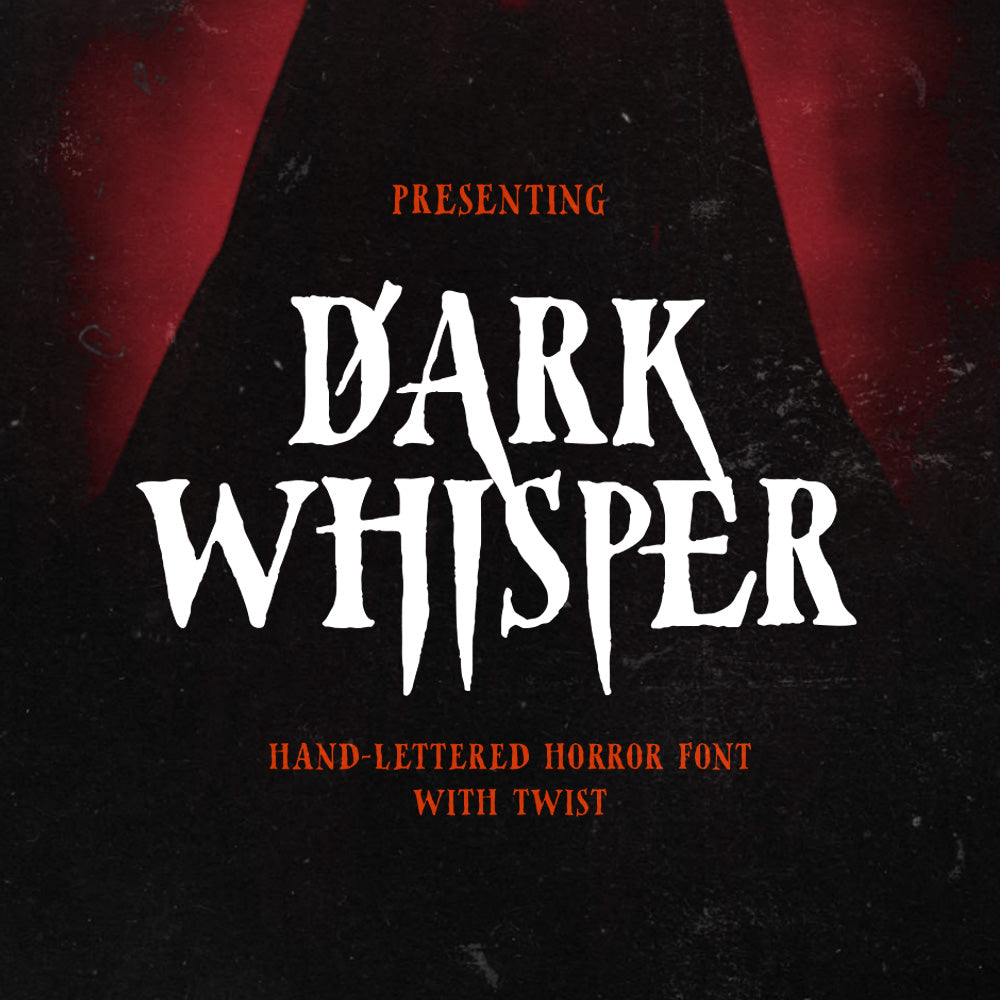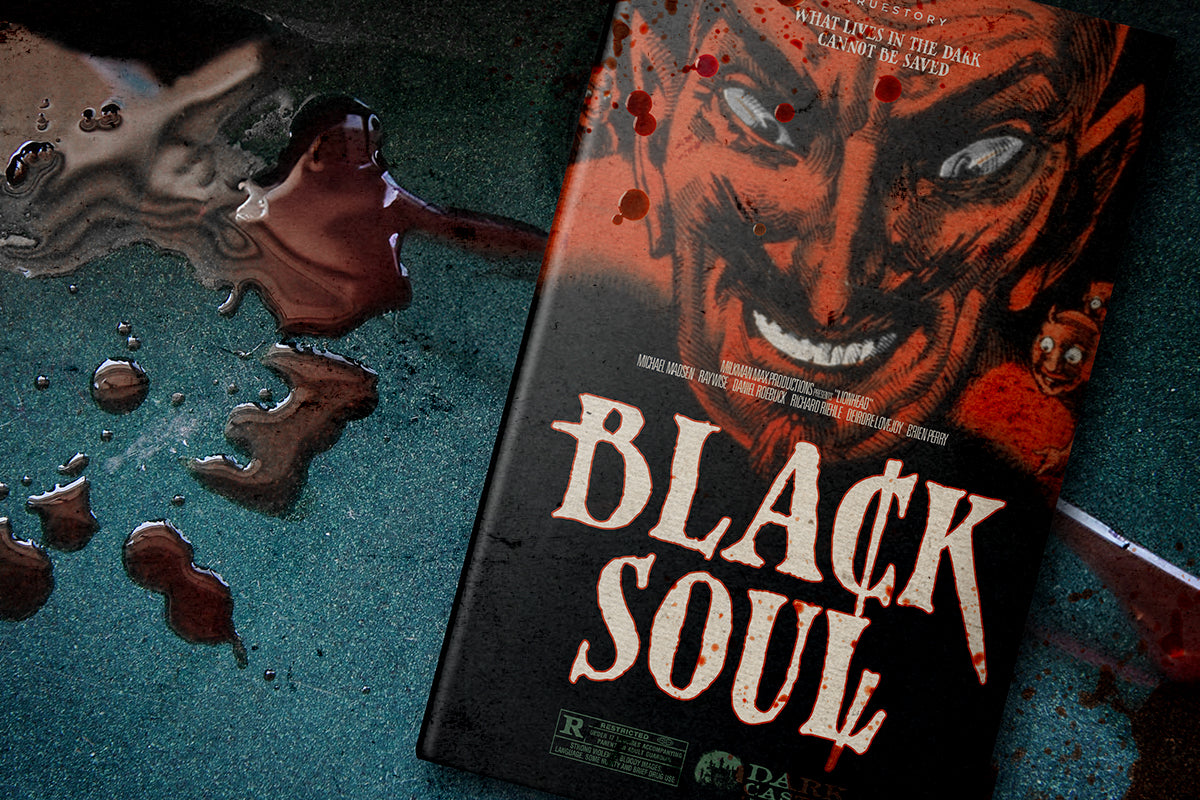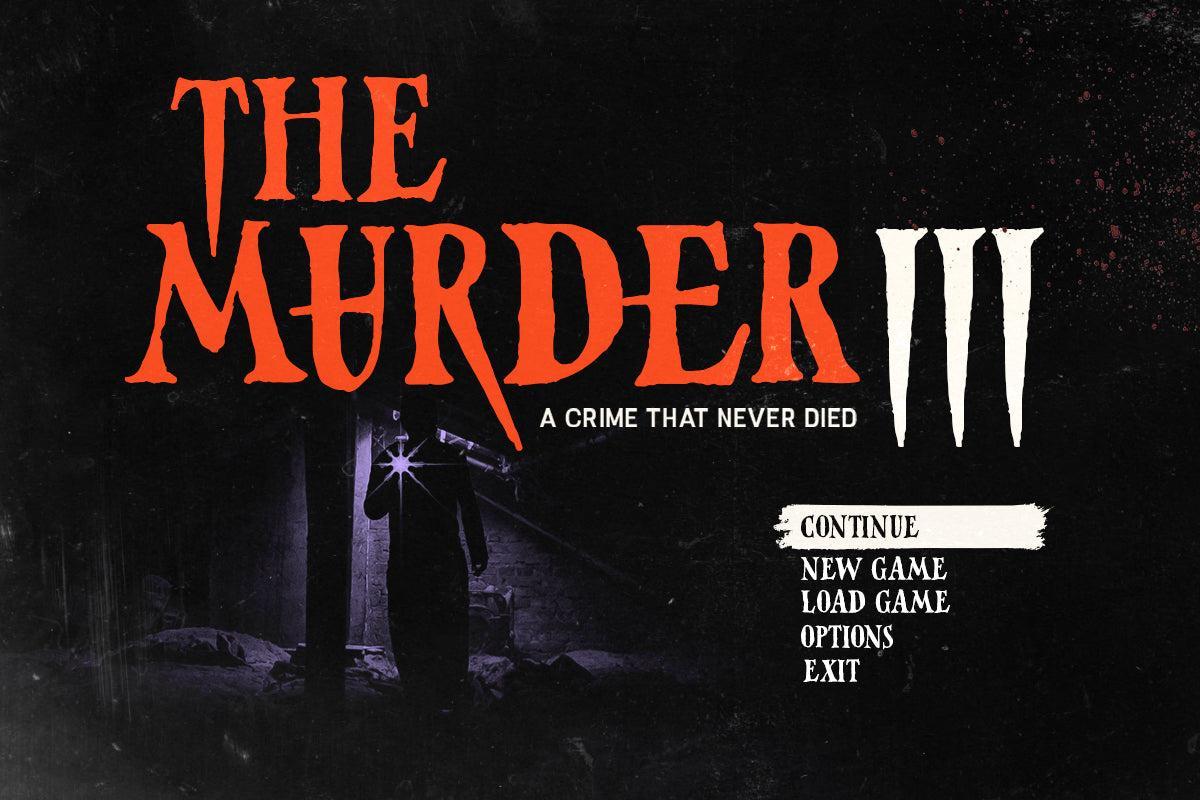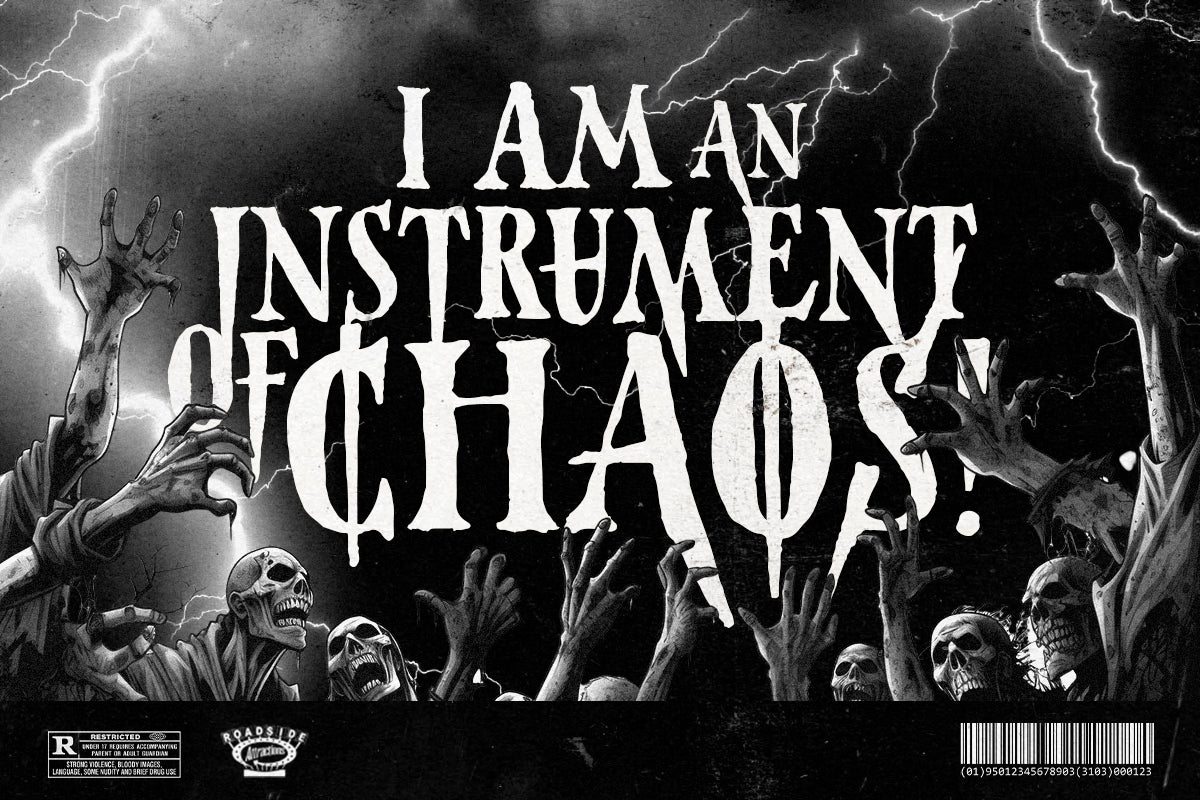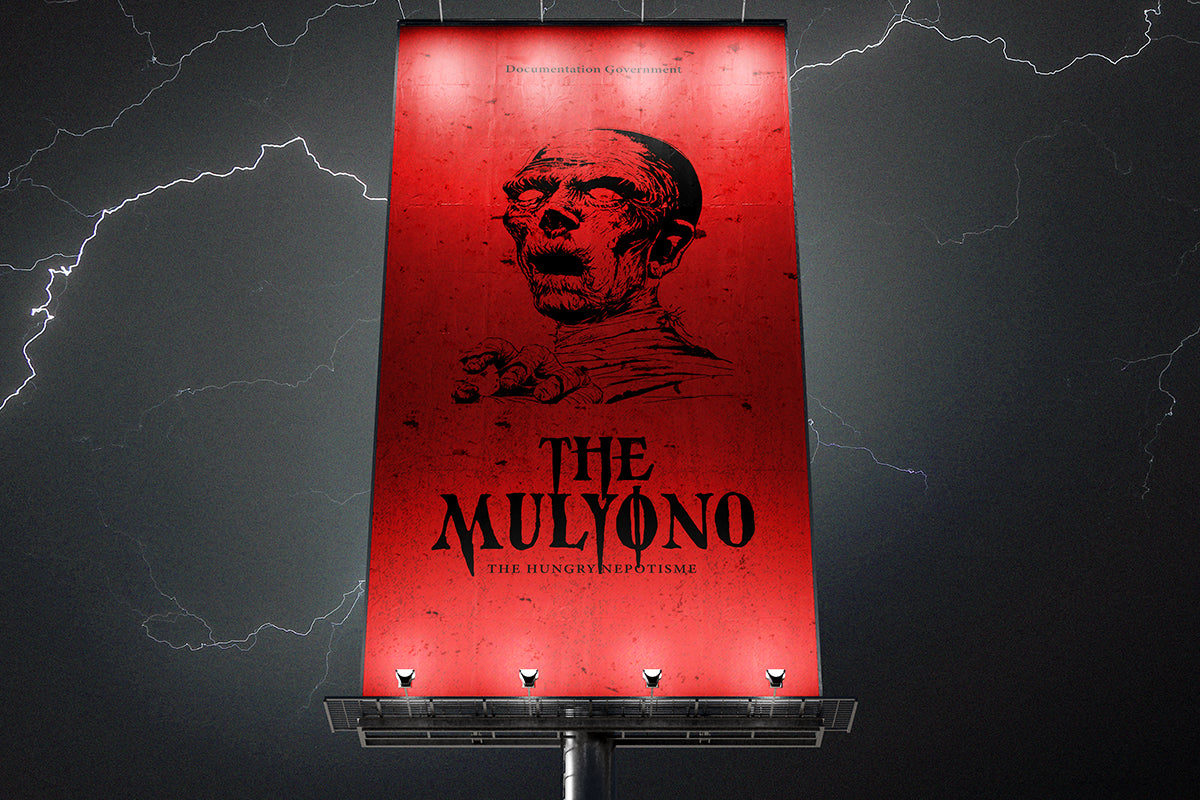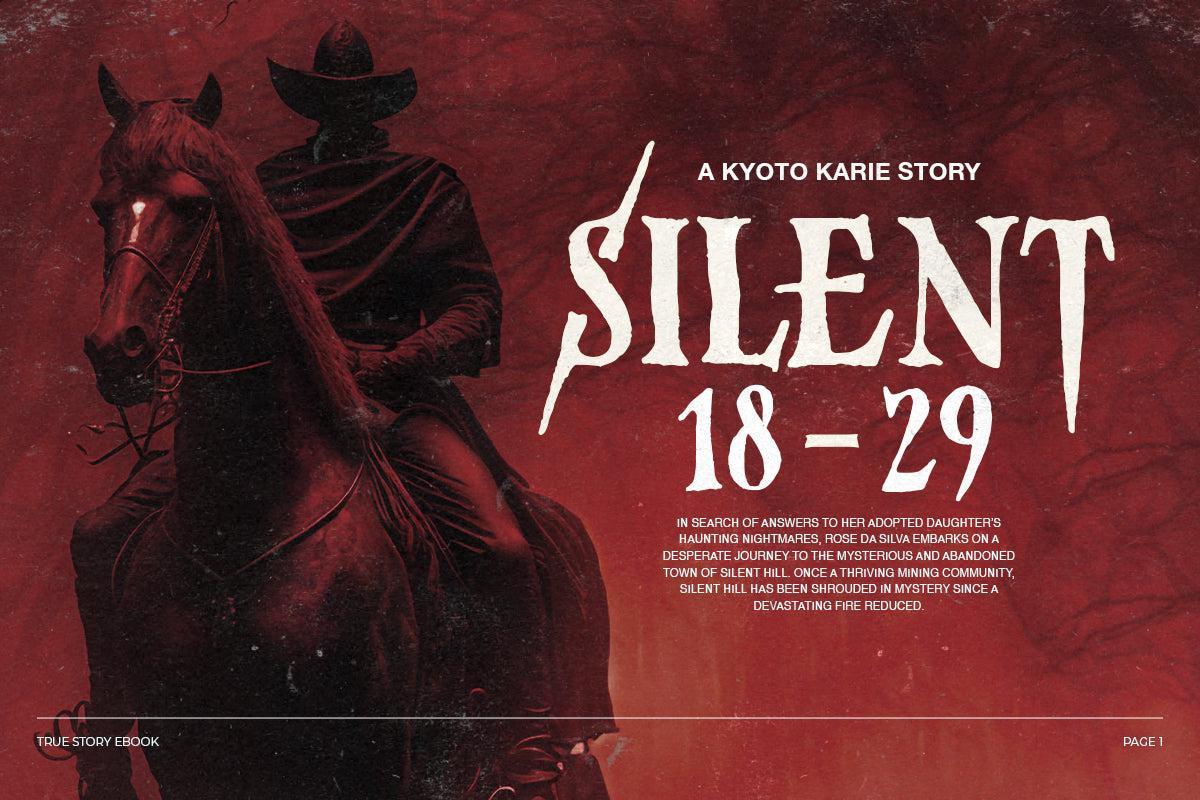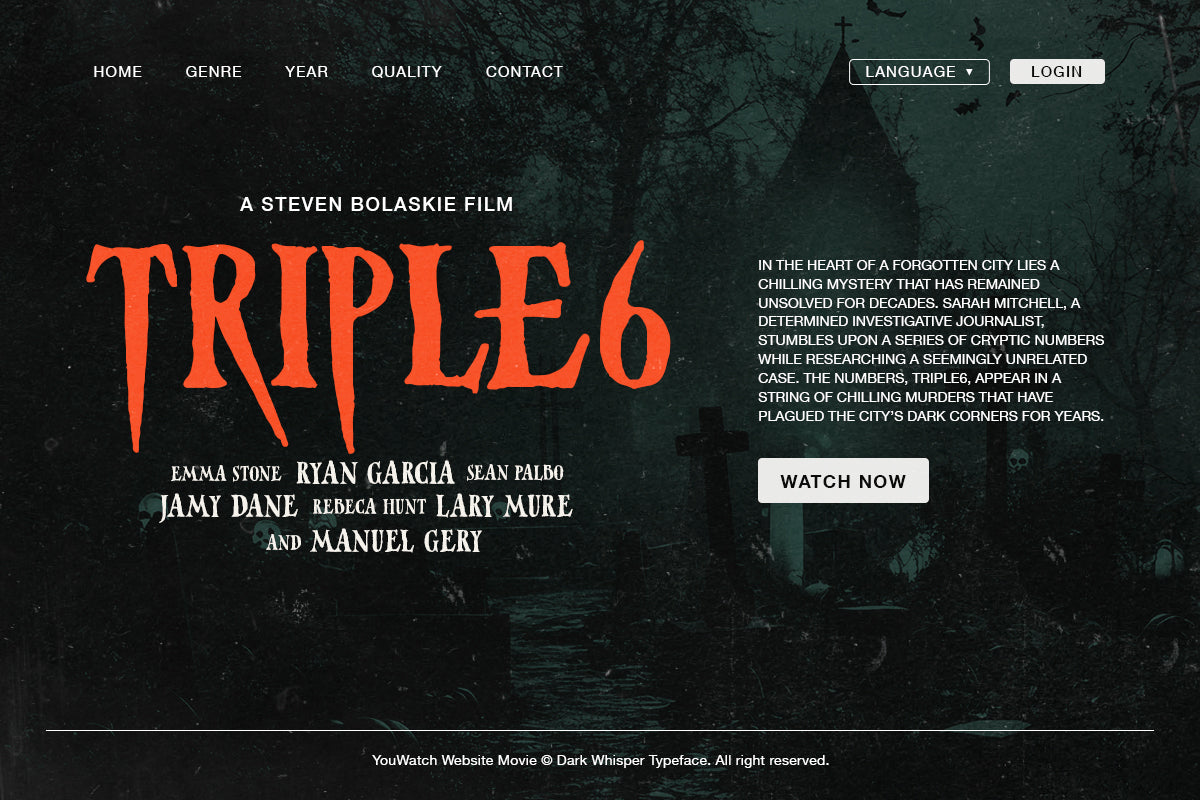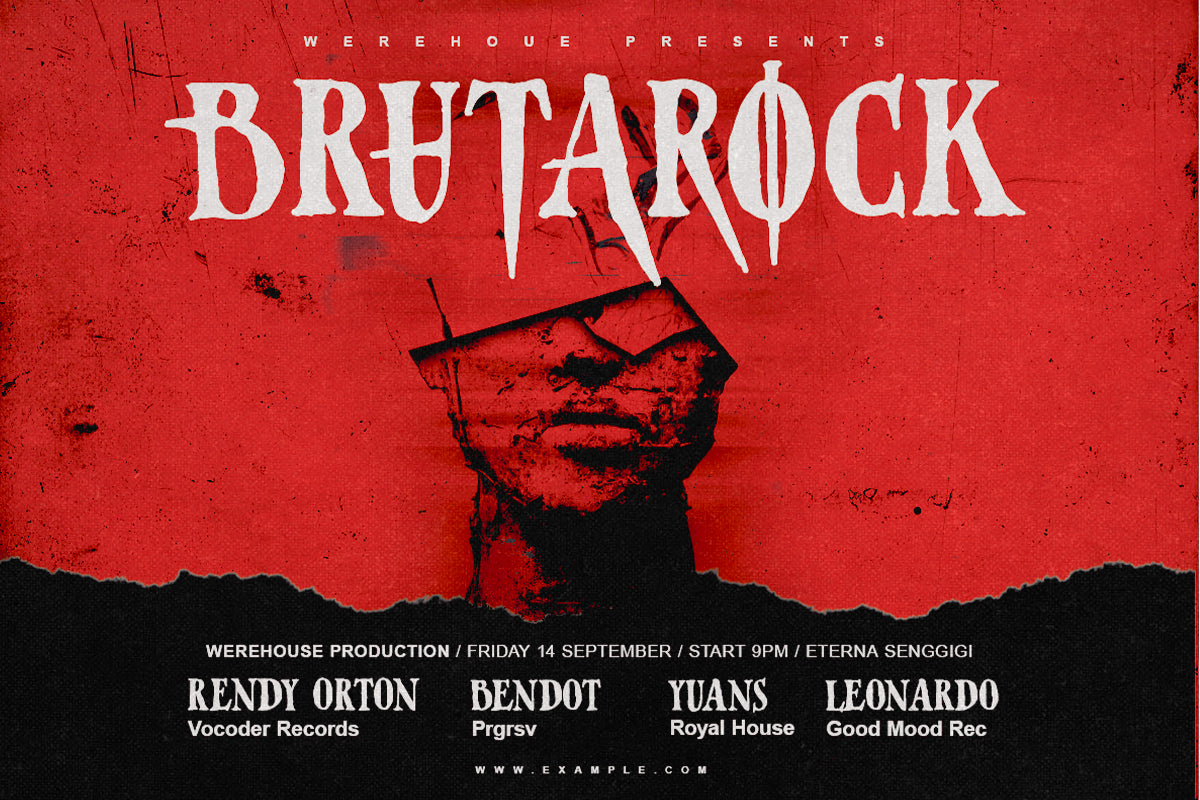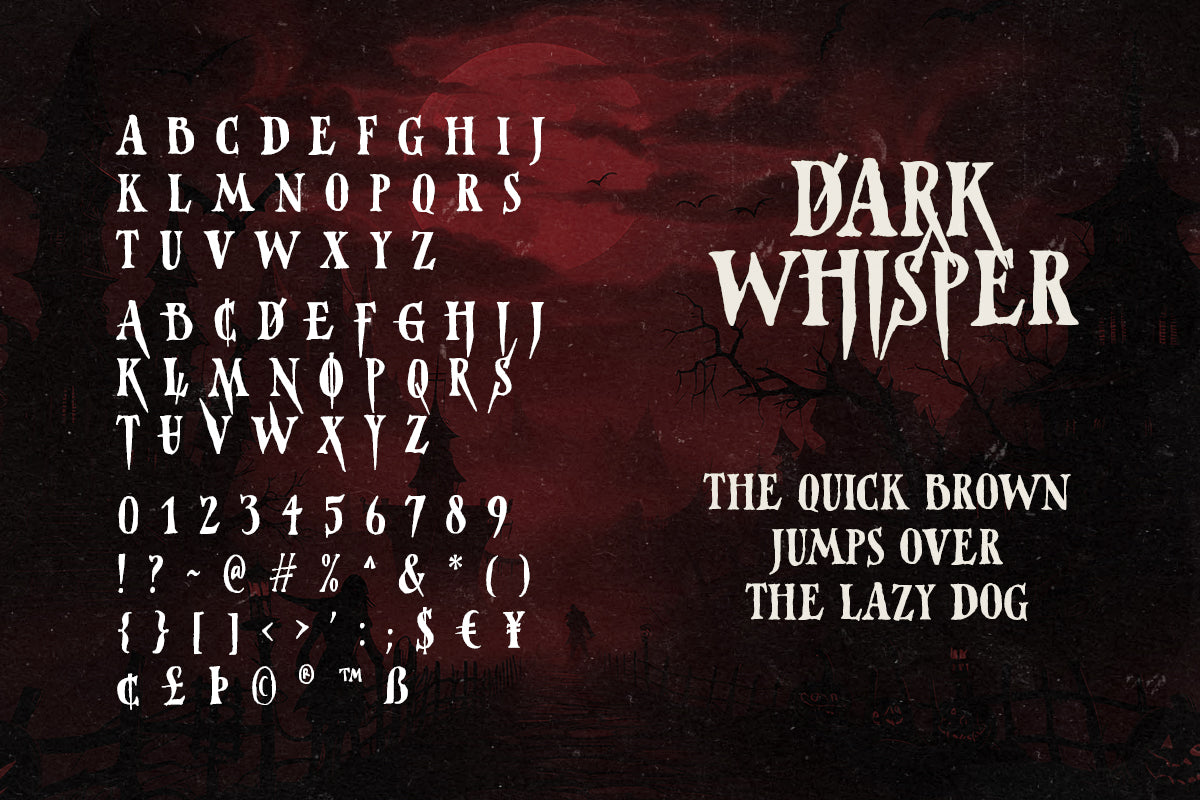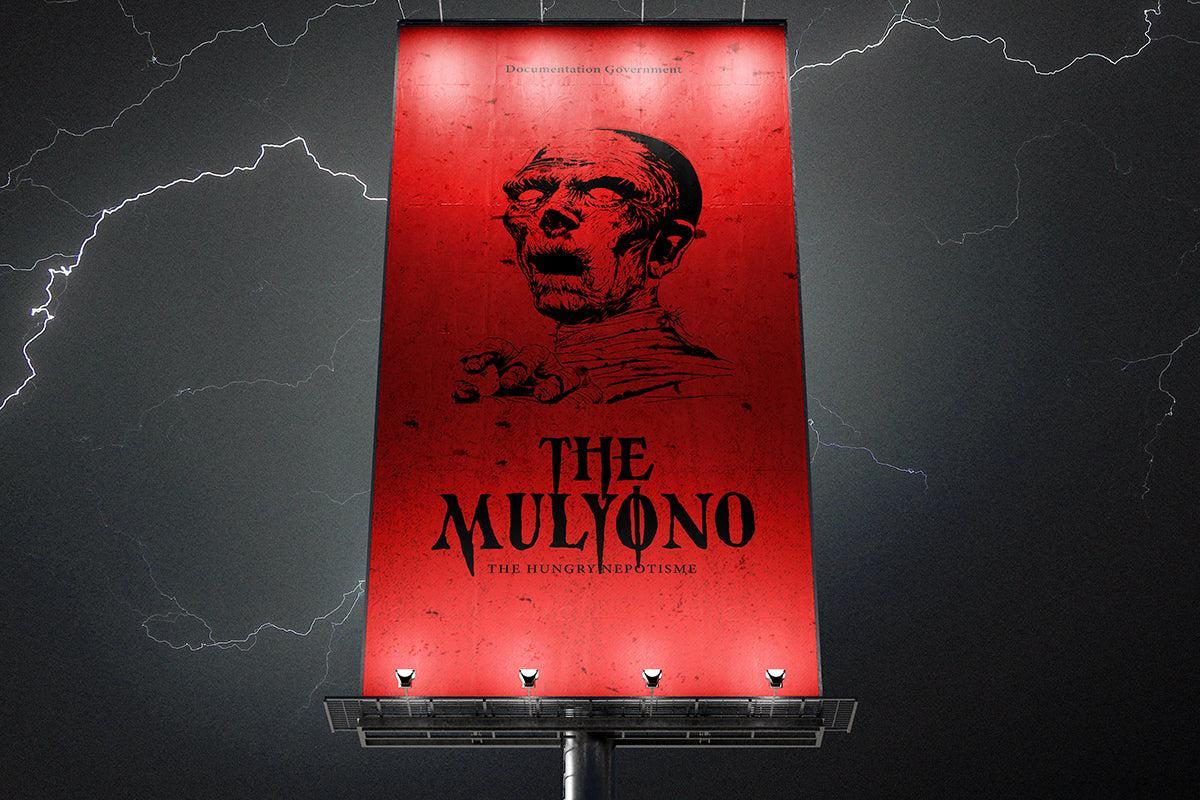
Dark Whisper - Serif Horror Font
Dark Whisper is a hand-lettered serif font designed with horror-inspired aesthetics, featuring unique lowercase characters that provide a distinctive style. It supports multiple languages and is suitable for various creative applications, making it a versatile choice for projects requiring a creepy edge.